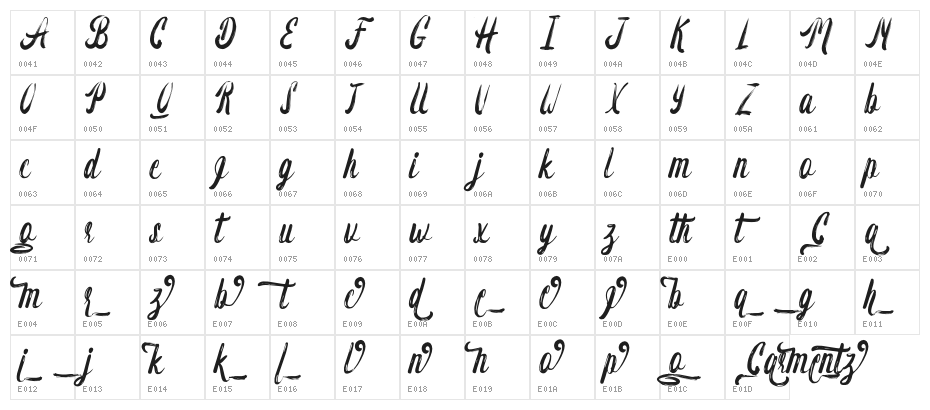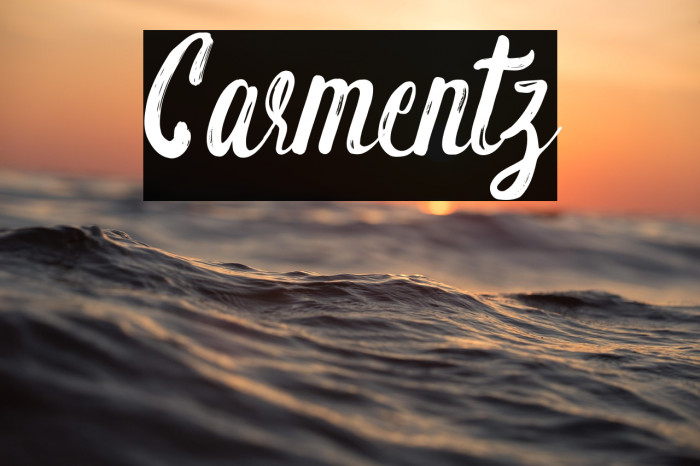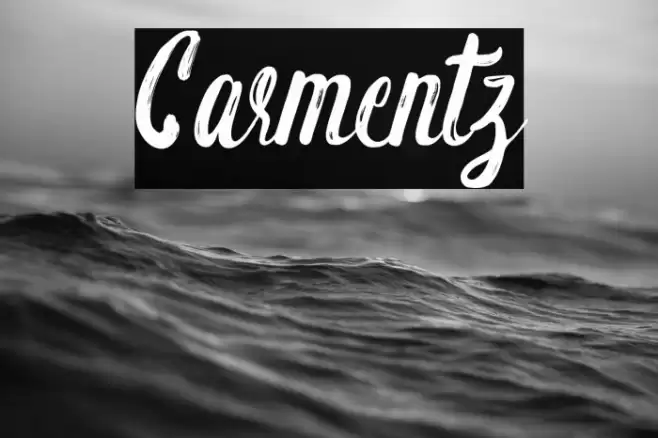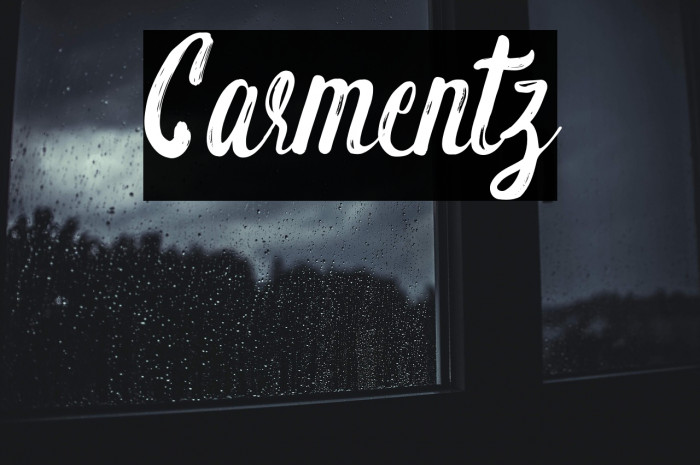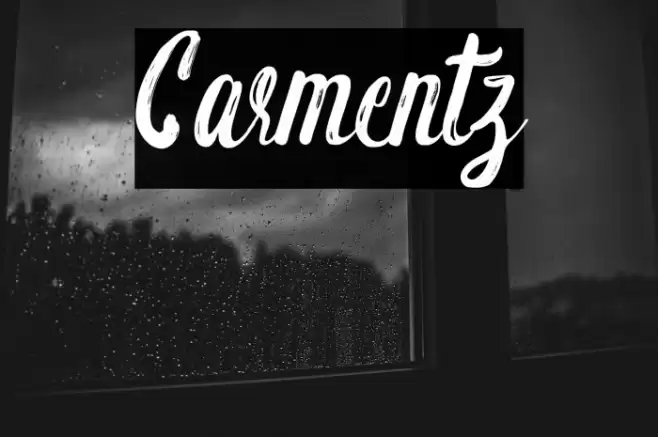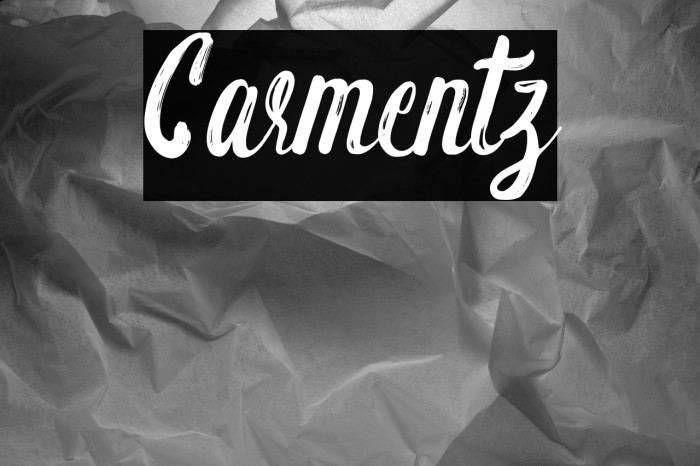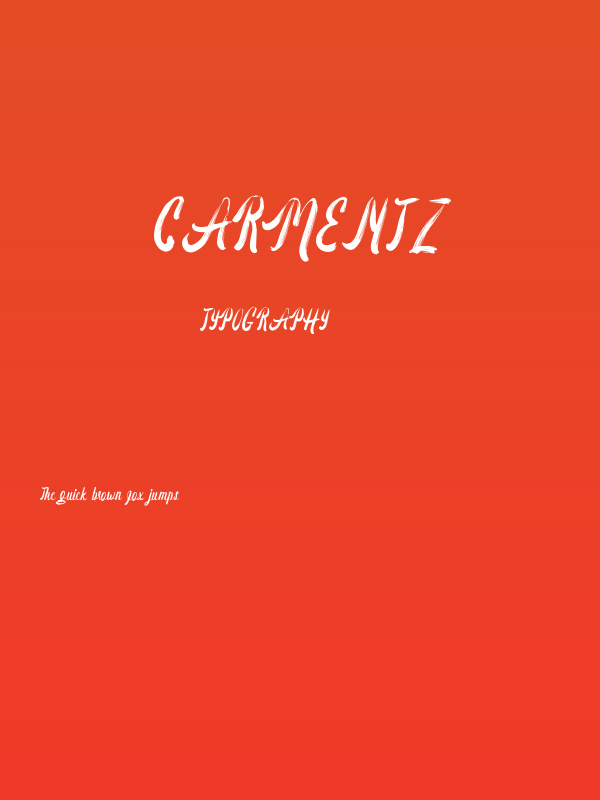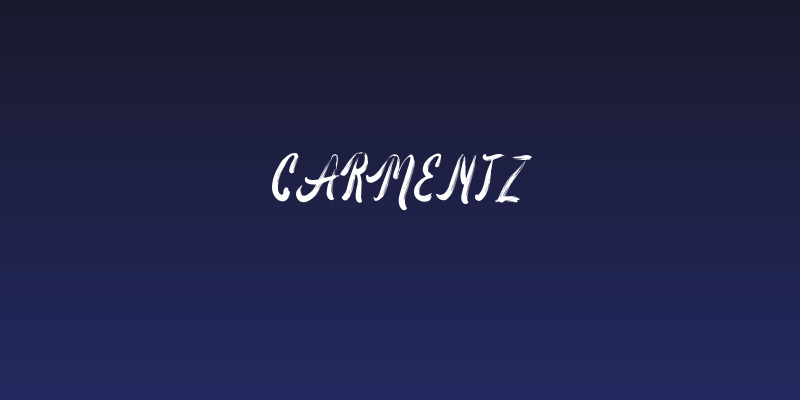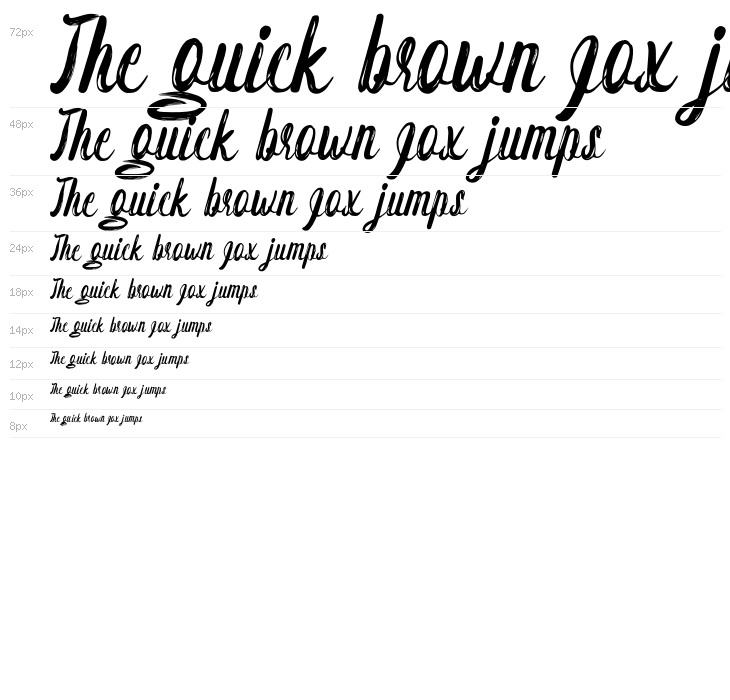
Carmentz Font
Carmentz Description
This font features a dynamic and expressive script style, characterized by its fluid and sweeping strokes. The uppercase letters exhibit a bold presence with a slight slant, giving them a sense of motion and elegance. The lowercase letters maintain a consistent flow, complementing the uppercase with their graceful curves. The overall design is reminiscent of calligraphic handwriting, with varying stroke widths that add depth and texture. The font's artistic flair makes it suitable for creative and decorative applications, where a touch of sophistication and personality is desired.
| Proposed Projects | Ideal for wedding invitations, branding, packaging design, and artistic posters. |